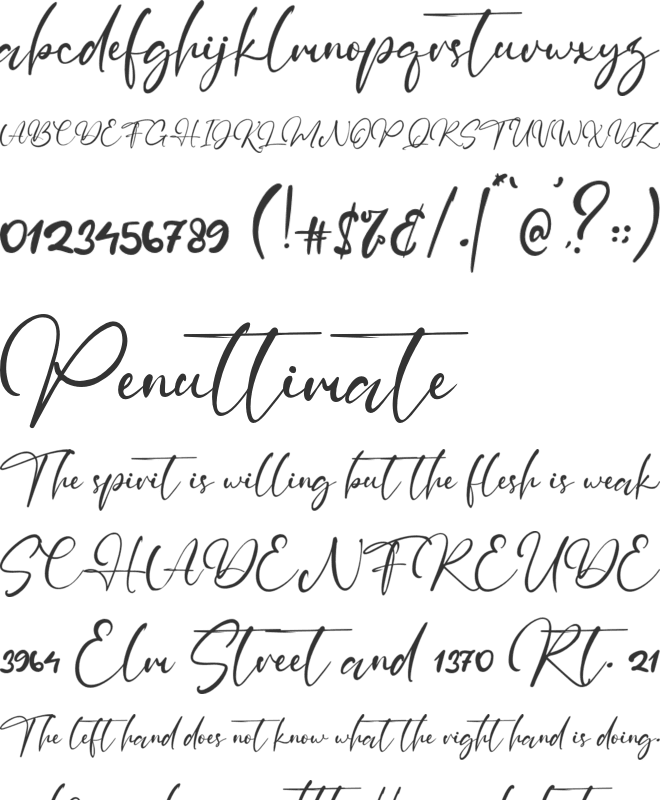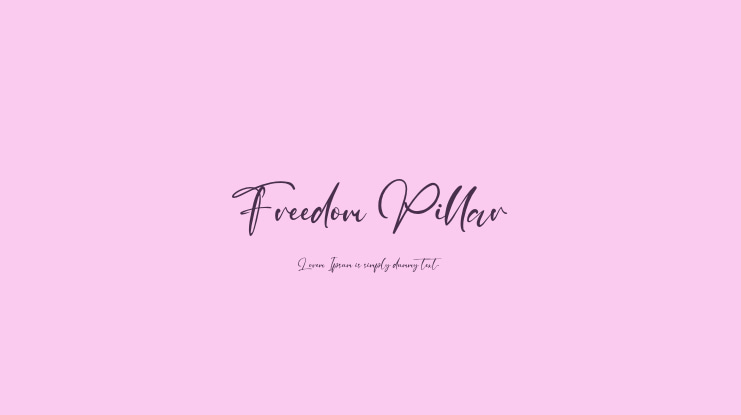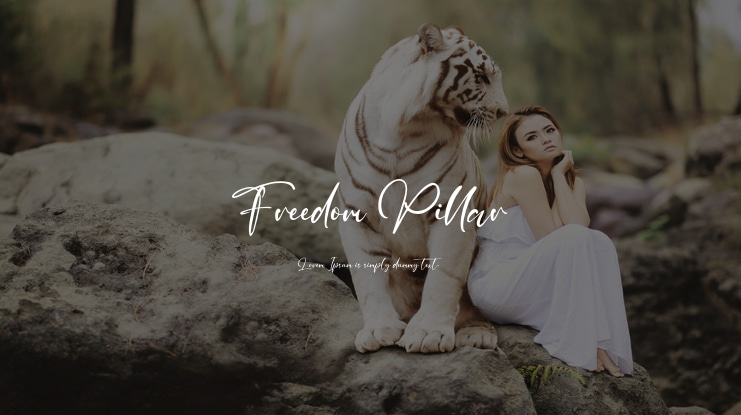
Freedom Pillar Font
Freedom Pillar Modern Script Typeface, A collection of letters and numbers suitable your projects also great for Logotype, Branding Design, Logo Design, Digital Lettering Arts, T-Shirt/Apparel, Poster, Magazine, Signs, Advertising Design, and any design needsClick our website :https://staircaselab.com/product/freedom-pillar/